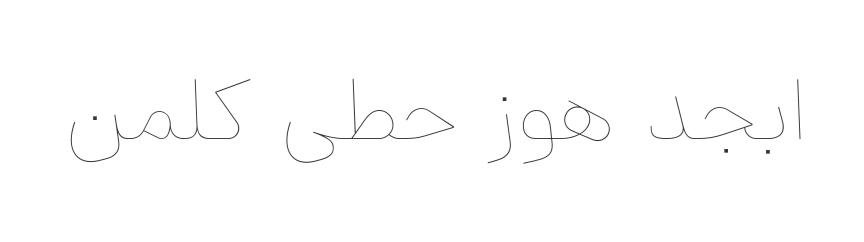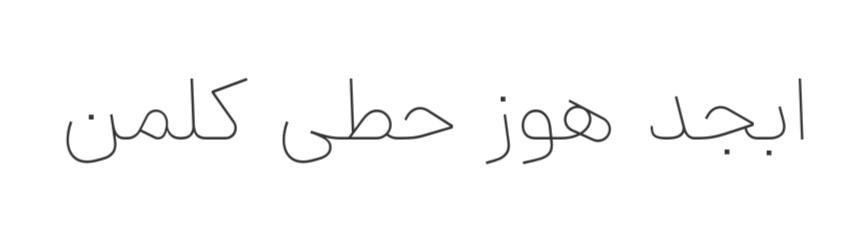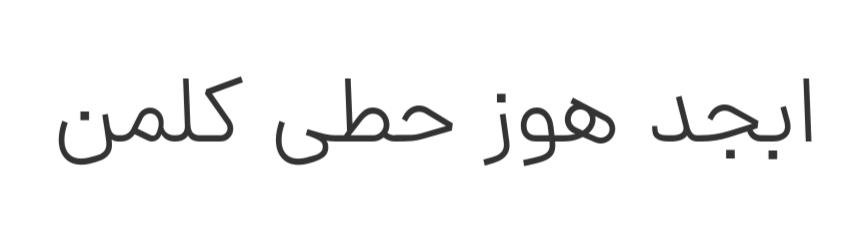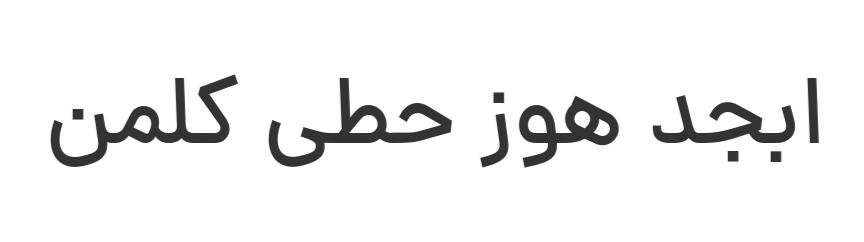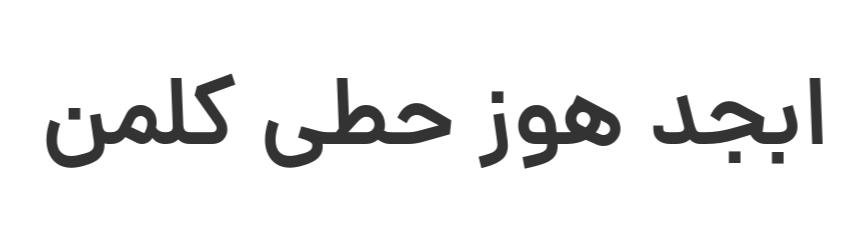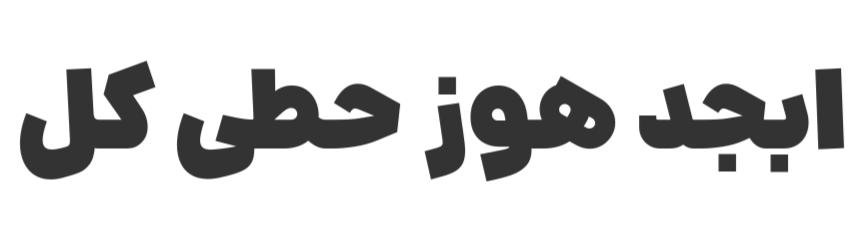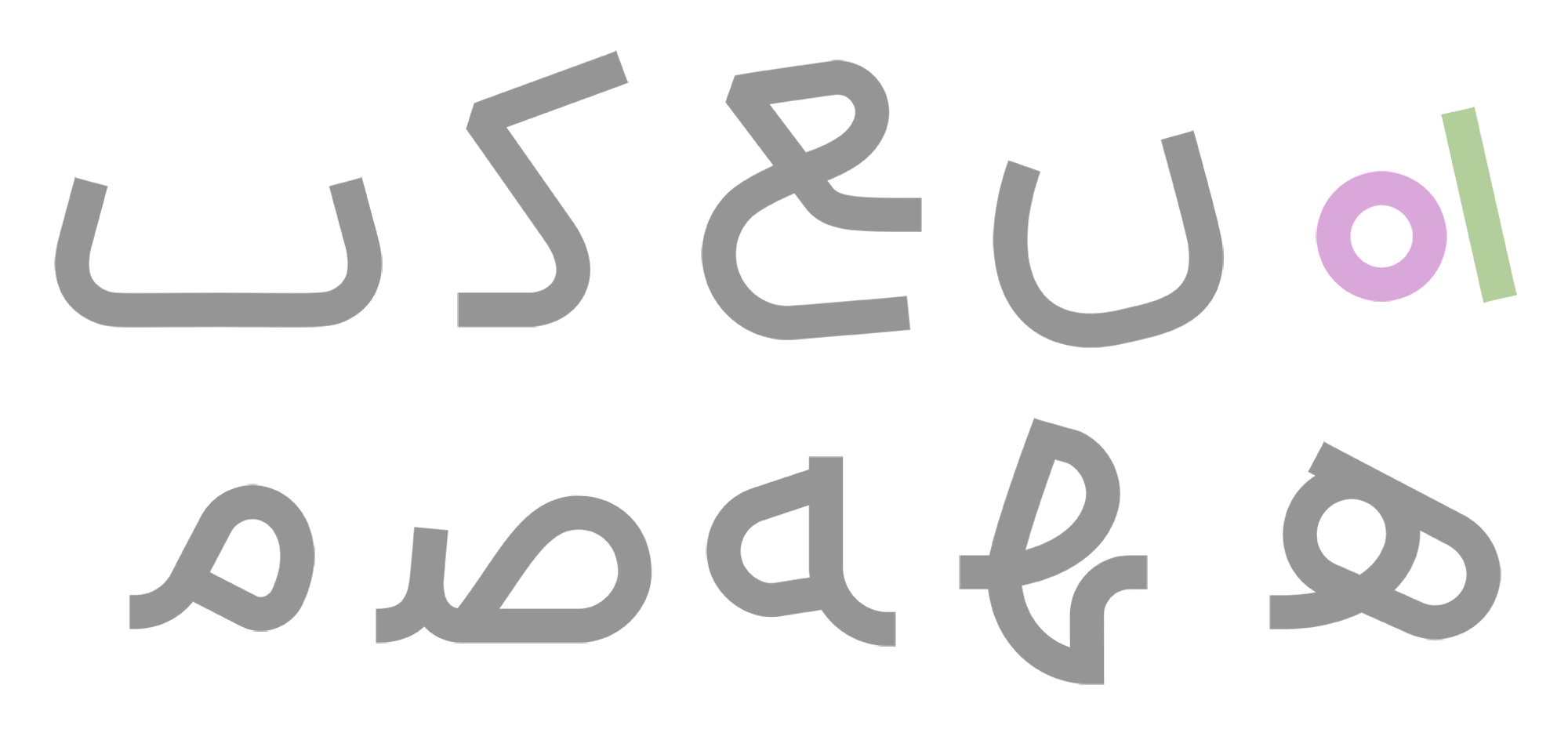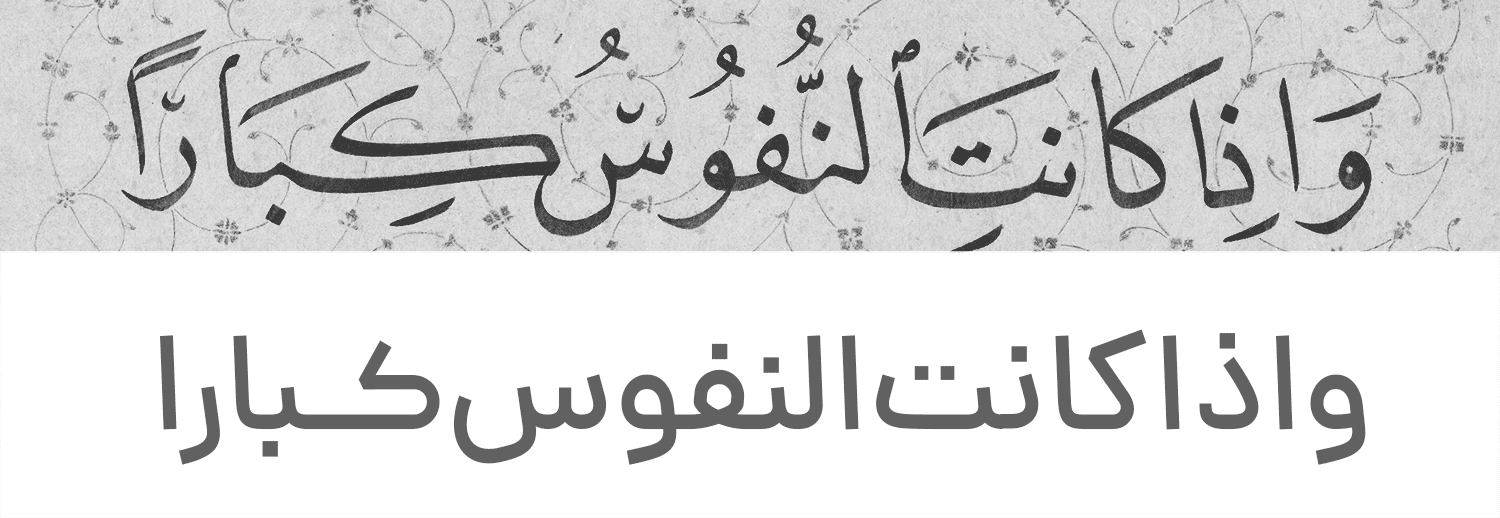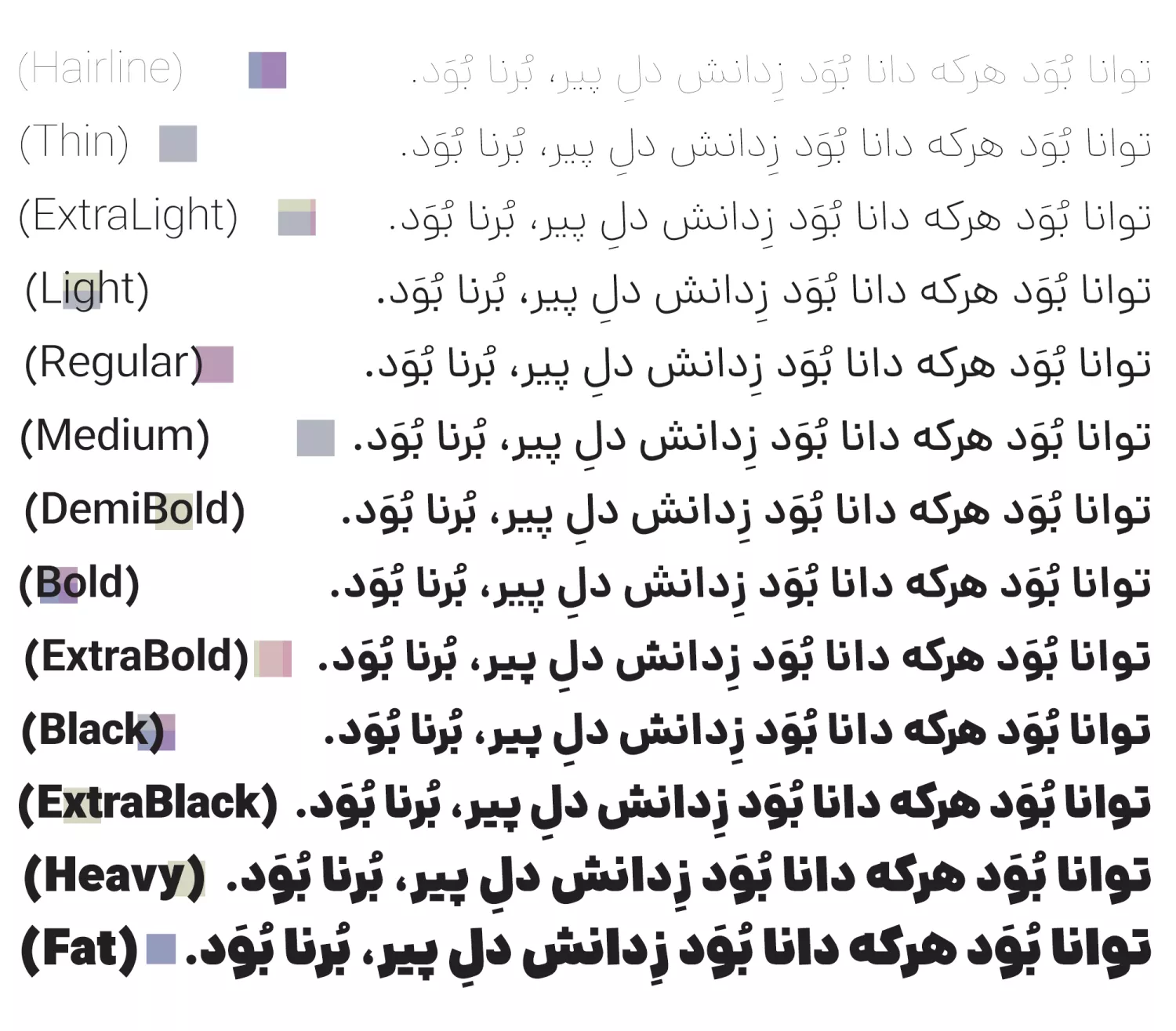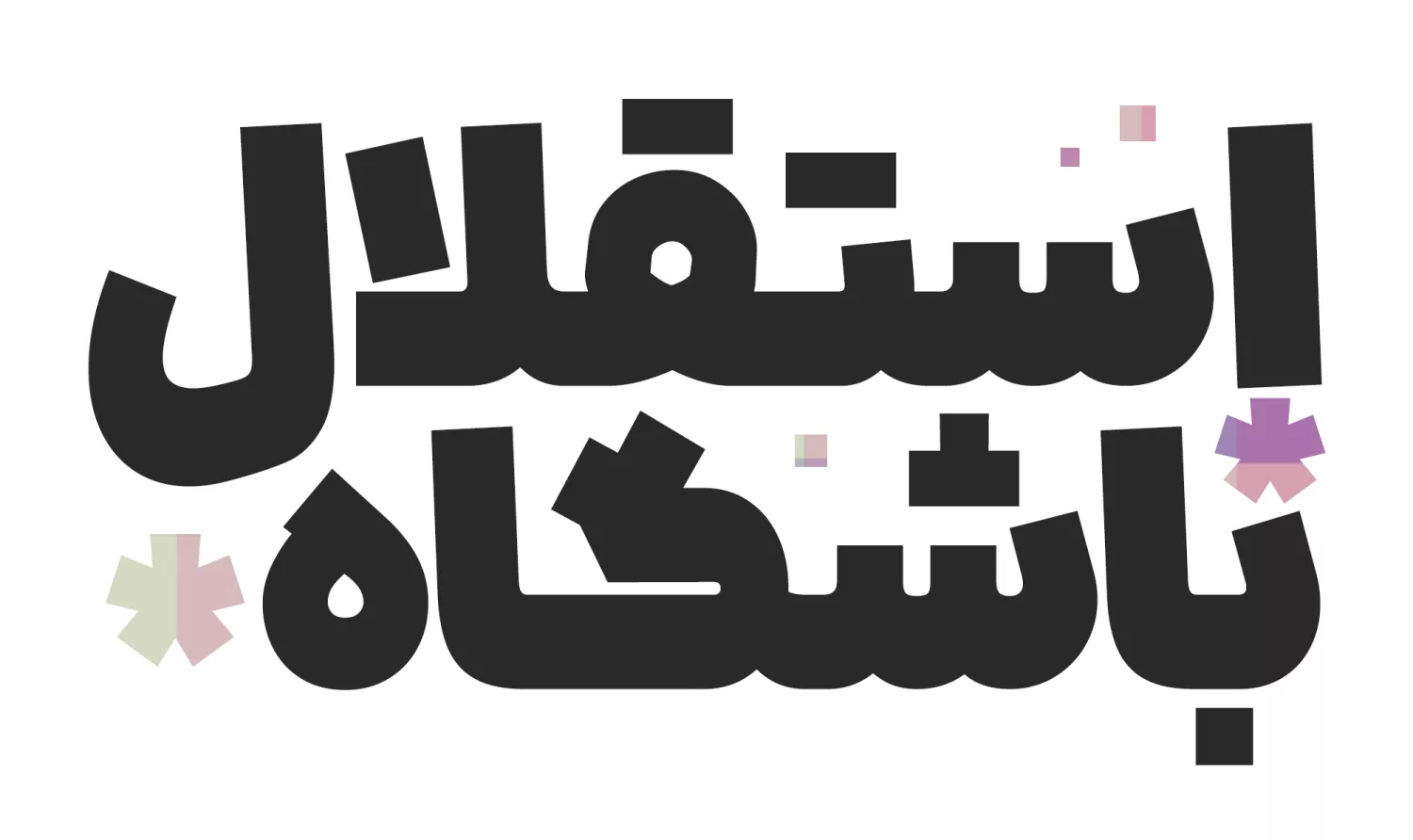
Danah Font
Daneh is a thoughtfully crafted typeface that brings together three major Islamic calligraphic traditions in a beautifully coordinated design. With its elegant proportions and comprehensive character support, this multilingual font allows you to create sophisticated projects that flow seamlessly across Persian, Arabic, and Urdu scripts.
Dana typeface is an attempt to create a geometric typeface closely resembling the Naskh script. Its geometric nature gives Dana a modern and contemporary look, while its fidelity to the Naskh style ensures its readability in small sizes and long texts. Dana typeface was first released in June 2019 and has since been a favorite among product designers. Many new brands and businesses have adopted Dana font to achieve a modern and contemporary design. You can see some of these designs at the bottom of this page.
Persian (Farsi) Script:
- Elegant Persian letterforms with refined character
- Full support for Persian-specific characters (گ، چ، پ، ژ)
- Correct representation of Persian numerals
- Proper character connections and positioning
- Optimized for readability at various sizes
Arabic Script:
- Coordinated Arabic design matching Persian style
- Complete Arabic character set
- Full support for Arabic diacritics and marks
- Harmonious weight and proportion
Urdu Script:
- Proper Urdu character set including specific letters
- Support for Urdu numerals and punctuation
- Correct representation of Nastaliq-influenced forms
- Seamless integration with Persian and Arabic
- Multilingual Publishing: Books and publications spanning multiple languages
- Regional Branding: Cohesive identities across Persian, Arabic, and Urdu markets
- Islamic Content: Religious materials for diverse audiences
- Website Design: Trilingual sites serving diverse readers
- Print Materials: Brochures, flyers, and magazines
- Packaging: Product labels for regional distribution
- Educational Materials: Language learning resources
- Corporate Communications: Professional materials for regional companies
- Three Scripts, One Design: Consistent visual identity across Persian, Arabic, and Urdu
- Elegant Aesthetic: Refined, sophisticated letterforms
- Comprehensive Support: All characters for all three languages
- Professional Quality: High-caliber font for commercial use
- Time-Saving: One font for multiple languages—no mixing required
Key Features of Daneh Font:
- Complete support for Persian (Farsi), Arabic, and Urdu scripts
- Elegant, coordinated design across all three languages
- Full character sets for each script
- Perfect for trilingual design projects
- Graphic designers working across Middle Eastern and South Asian markets
- Publishers creating multilingual books and materials
- Web designers building trilingual websites
- Brand specialists developing regional identities
- Islamic content creators
- Anyone needing elegant typography across Persian, Arabic, and Urdu
Dana-Heavy
Dana-fat
The structure of the letters in the Dana typeface is designed using a combination of straight lines and circular shapes, with minimal use of freeform curves.
To preserve the essence of calligraphy and enhance fluidity, the vertical alignment in the Dana typeface is slightly tilted, avoiding the use of strict vertical lines in letter construction.
Variable fonts
Variable fonts are primarily used in web design, offering a single font file to meet all requirements.
The Dana variable font is just 120 KB, featuring 13 weights, Persian numerals, and more—an ideal choice for improving website loading speed and visual appeal. This version of the Dana font includes two variable axes: weight and width.
Weight: This axis controls the stroke thickness, with values ranging from 10 (Hairline) to 990 (Fat).
Kashidah: This variable can extend words, with a value range from 0 to 100.